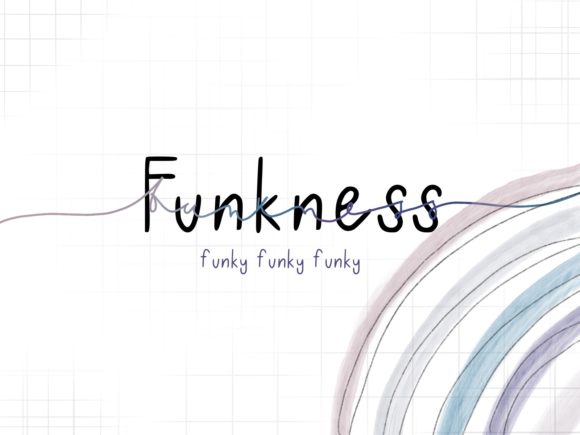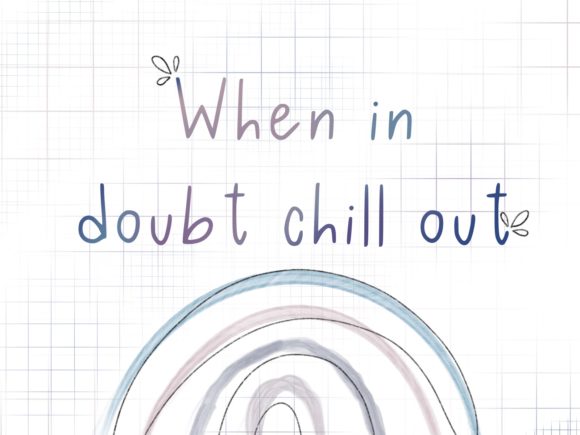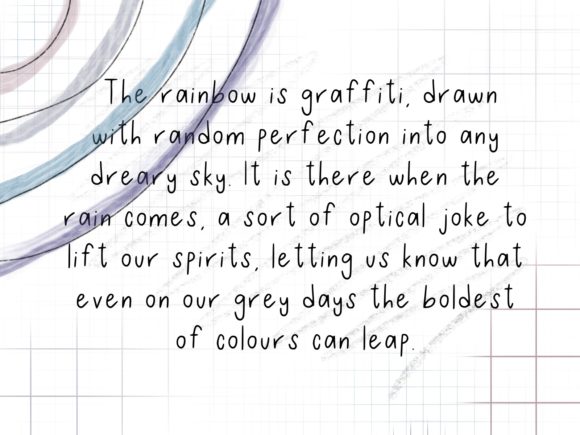
Funkness Font
About Funkness Font
Funkness is a playful and modern script font. Featuring a light weight, it offers support for all characters of the English language. Funkness is perfectly suited for traditional web and media.